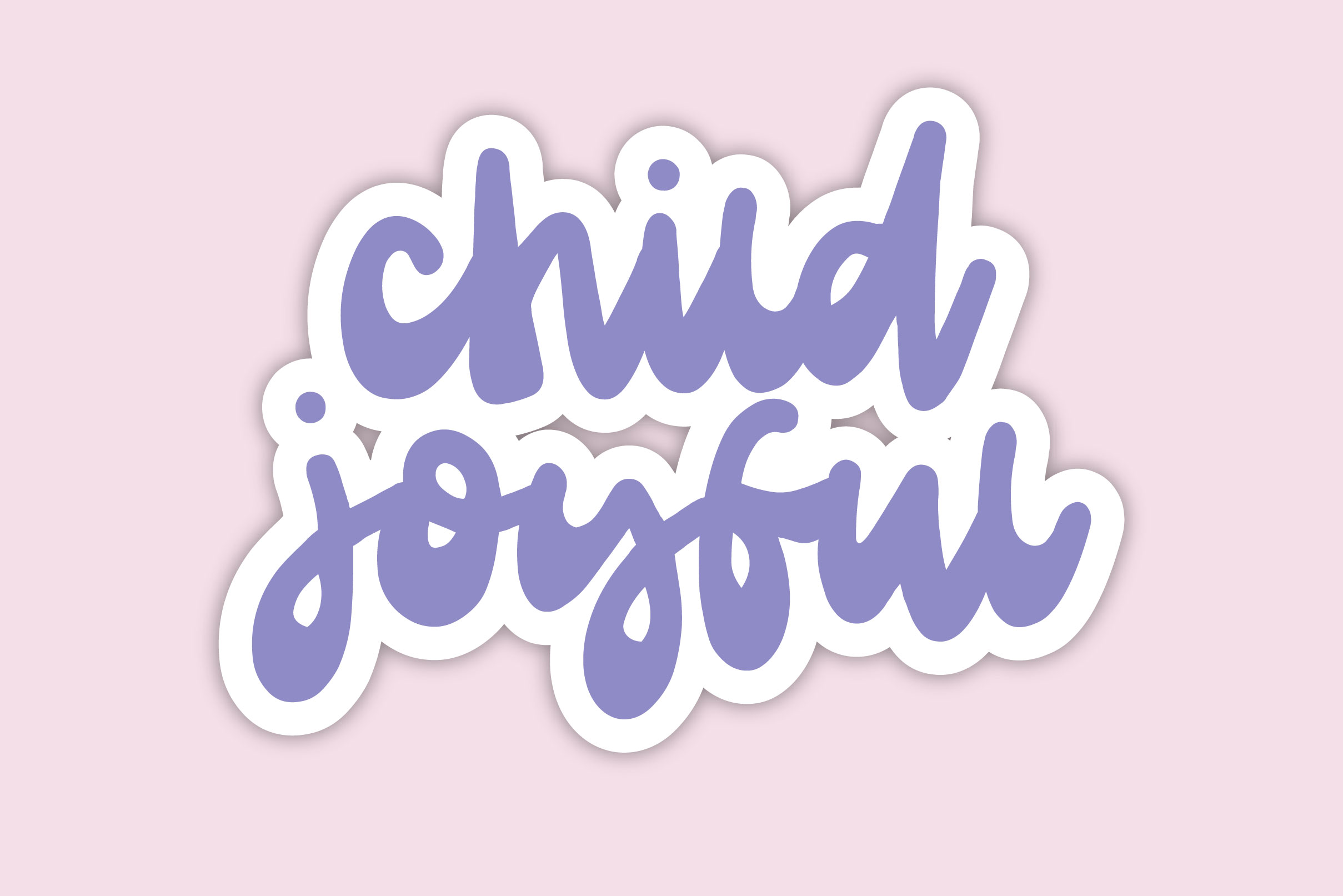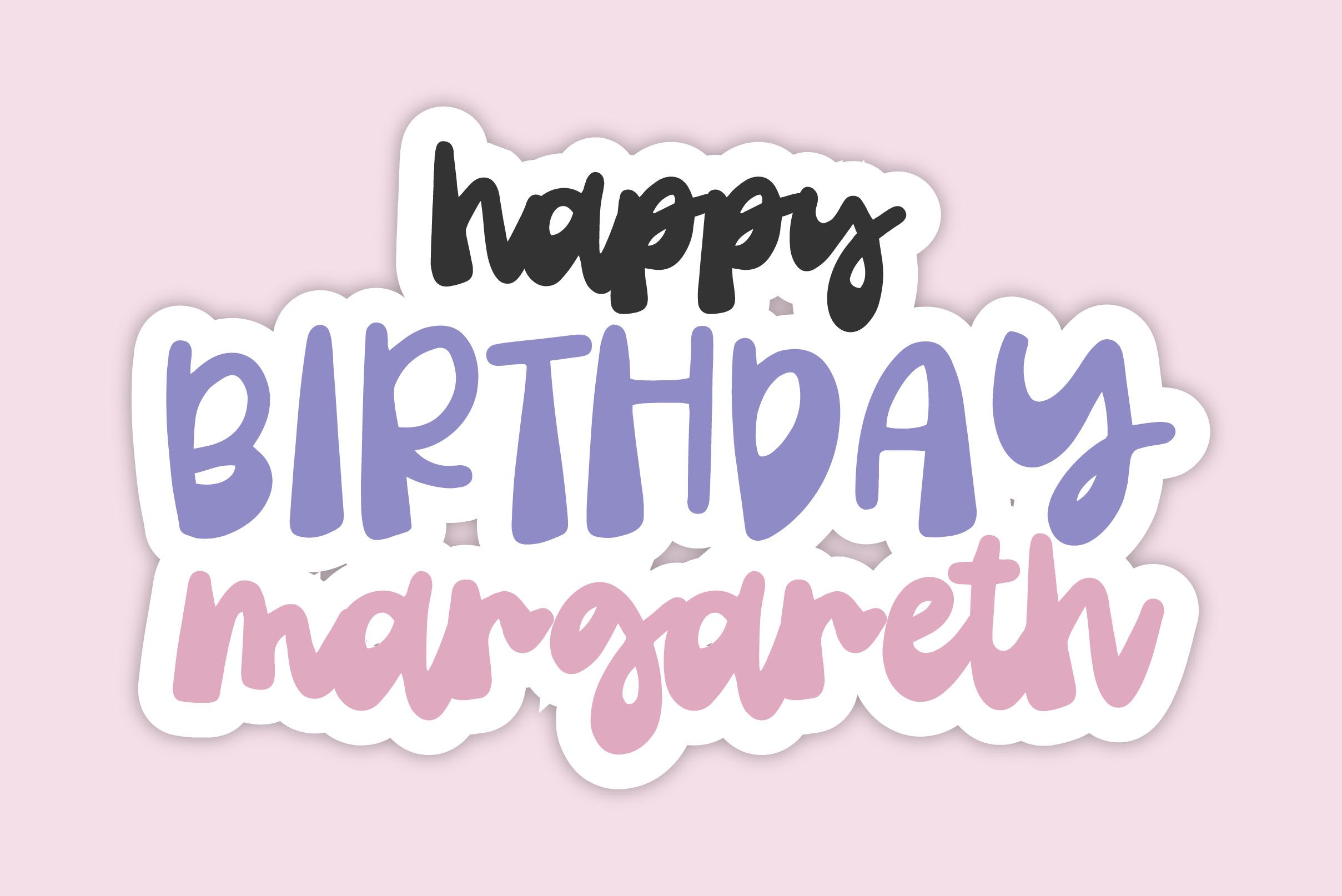
Welcome Summer Font
Welcome Summer Script Font is a sweet and cursive handwritten font. This soft font will look great on any design idea, and it will add a fun and romantic touch to any of your projects!
– Uppercase, Lowercase, Numeral & Punctuation
– Alternate Letters, Ligature & Swash/Tail